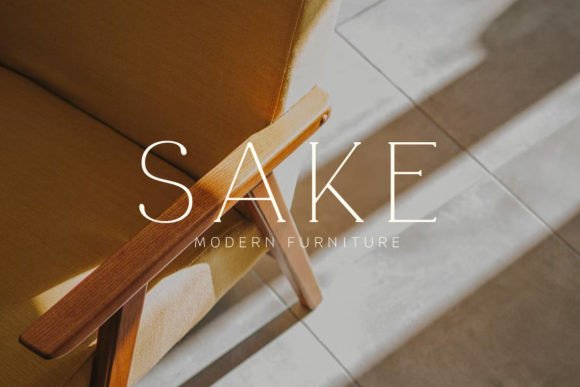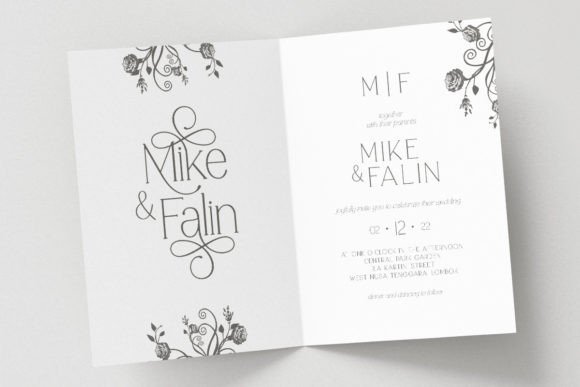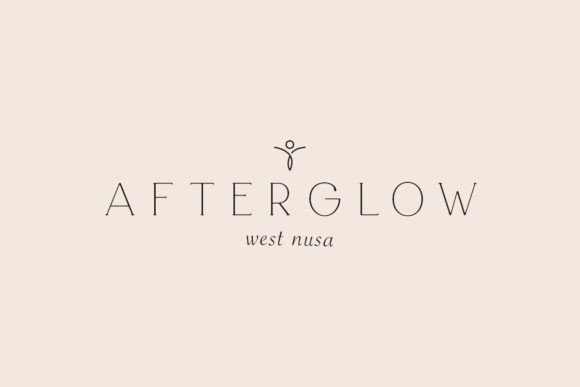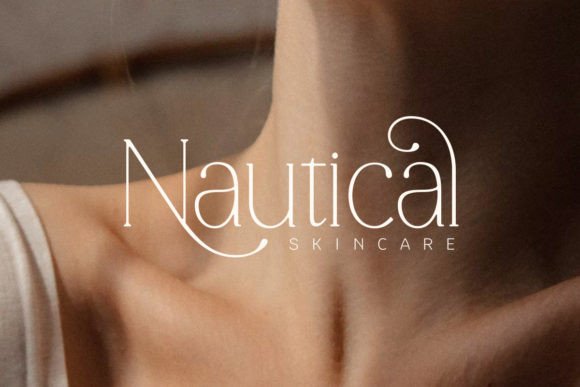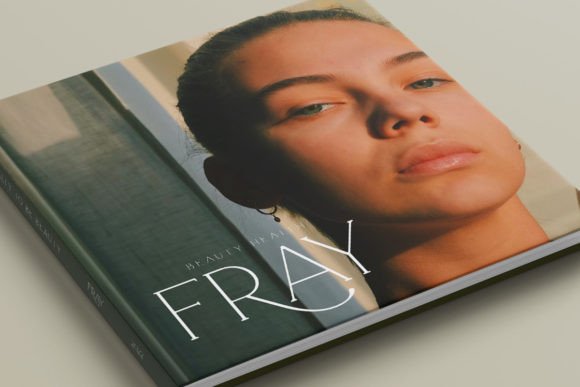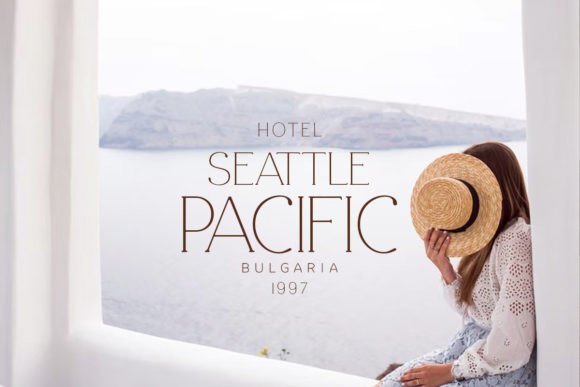
Introduction to Fairy Dreams Font
As a designer, there’s nothing quite like that moment of creative spark – when an idea strikes and you know exactly how to bring it to life. For me, it was the discovery of the Fairy Dreams Font. With its minimalist and modern serif style, this font has become an indispensable design resource for any project requiring a simple yet elegant look.
Whether you’re working on a branding project, creating a logo, or designing wedding invitations, the Fairy Dreams Font is the perfect choice. Its versatility and high-quality design make it a valuable addition to any designer’s toolkit, and the best part? It’s available for free download, allowing you to bring your creative vision to life without breaking the bank.
With its transparent background and beautiful alternates and swash options, the Fairy Dreams Font is a must-have for any designer looking to add a touch of sophistication to their next creative project.
Key Features of Fairy Dreams Font
- Unique, whimsical design perfect for creative projects and fantasy-themed designs.
- High-quality font with transparent background, ideal for use on images or videos with a clear background.
- Perfect for adding a touch of magic to your designs, making it a great choice for fantasy, fairy tale, or children’s book-inspired projects.
Honest Review: Fairy Dreams Font
I recently stumbled upon the Fairy Dreams Font while searching for a unique design resource to enhance my creative project. I was impressed by its whimsical and dreamy aesthetic, which is perfect for projects that require a touch of magic.
One of the standout features of the Fairy Dreams Font is its high quality and clear typography. The font is available for free download, which is a huge plus for designers on a budget. It’s also available in a transparent background, making it easy to use in various design contexts.
Here are some of the things that work well about the Fairy Dreams Font:
- ✨ Unique and whimsical design that adds a touch of magic to any project
- ✨ High quality typography that’s clear and easy to read
- ✨ Transparent background option for easy use in various design contexts
- ⚠️ Limited character set, which may not be suitable for longer texts
Overall, I’m impressed with the Fairy Dreams Font and would definitely recommend it to designers looking for a unique and high-quality design resource. Just be aware of its limitations and use it accordingly.
Common Use Cases for Fairy Dreams Font
The Fairy Dreams Font is ideal for creative projects that require a whimsical and magical feel. Use it for invitations, greeting cards, or social media graphics. You can also use it to create high-quality designs for your blog or website.